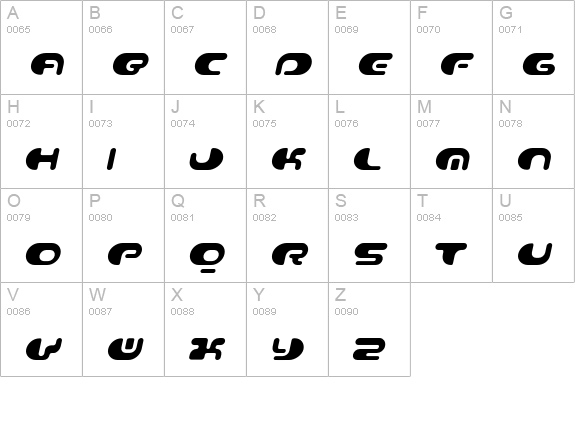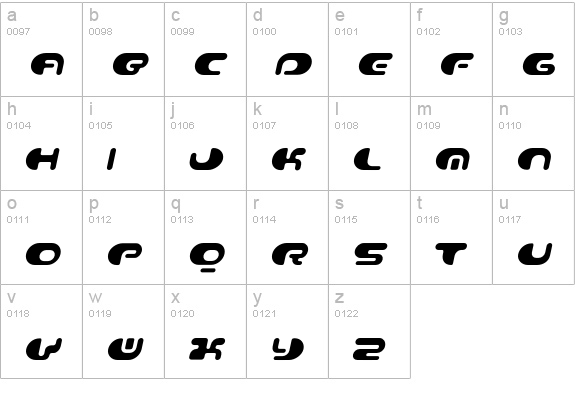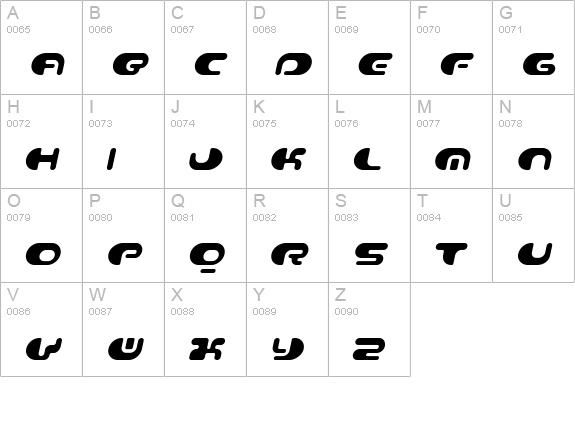
Contour-Italic is a distinctive, italic variant in the Contour typeface family \xE2\x80\x94 well suited to design and typography projects.
Introducing Contour-Italic, a sleek and modern font that exudes elegance and sophistication. Its delicate curves and stylish slant give it a unique and eye-catching appeal, perfect for adding a touch of flair to any design project. The Contour-Italic font is versatile and can be used for a wide range of creative applications, from branding to packaging to invitations. What's even better is that Contour-Italic is completely free! Yes, you read that right - this stunning font is available for download at FontsMarket.com at no cost. So why wait? Enhance your designs with the exquisite Contour-Italic font today and make a lasting impression with its distinctive style.